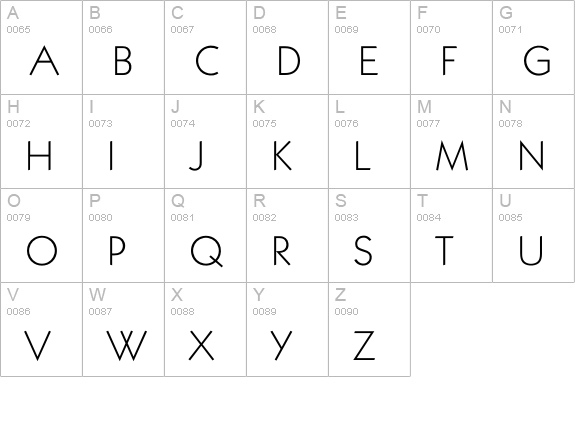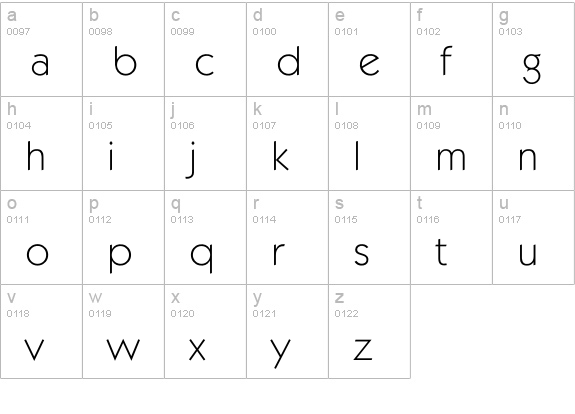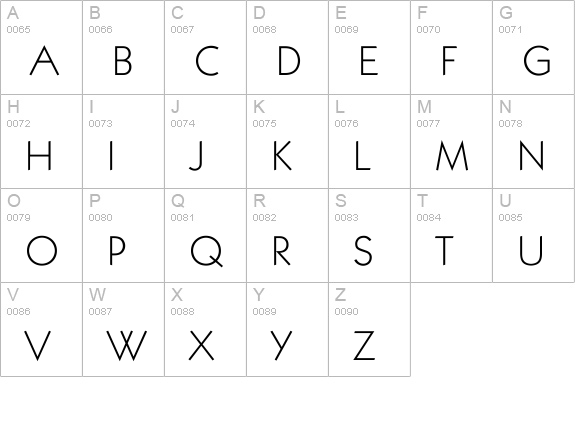
Kabel Xlight Font Details
Introducing Kabel Xlight, a sleek and modern font that exudes elegance and sophistication. With its clean lines and subtle curves, this typeface is perfect for adding a touch of modernity to any design project. Kabel Xlight is designed with versatility in mind, making it suitable for a wide range of applications. Whether you're designing a logo, creating a website, or crafting a print advertisement, this font will make your text stand out with its unique charm. What sets Kabel Xlight apart is its incredible legibility, even at smaller sizes. Each letter is meticulously crafted to ensure maximum clarity, allowing your audience to effortlessly read and absorb your message. This makes it an ideal choice for body text, ensuring that your content is easily readable and engaging. And the best part? Kabel Xlight is free! Yes, you read that right. This remarkable font is freely available to download at FontsMarket.com. Now, you can elevate your designs without breaking the bank. Whether you're a professional designer or a passionate hobbyist, Kabel Xlight offers you the opportunity to create stunning visuals without any cost attached. So go ahead and unleash your creativity with Kabel Xlight. Download it today from FontsMarket.com and start transforming your designs into works of art. With its sleek aesthetics and effortless legibility, this font is sure to become your go-to choice for all your design needs. Don't miss out on this incredible opportunity to enhance your projects with a font that combines beauty and functionality seamlessly. Get Kabel Xlight and let your designs shine!